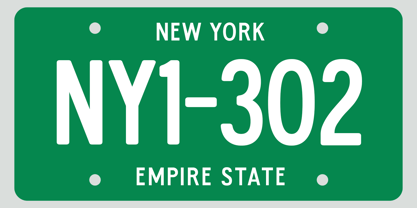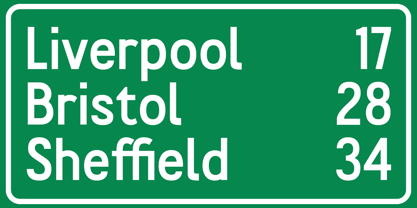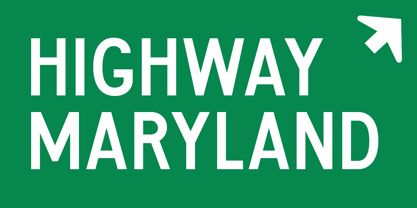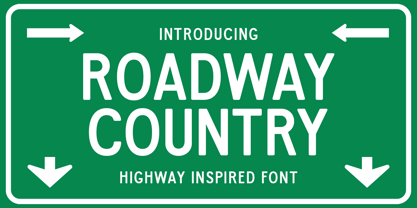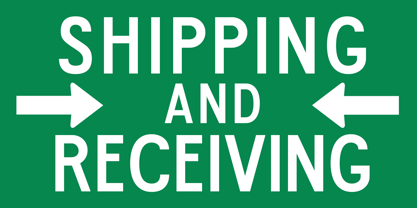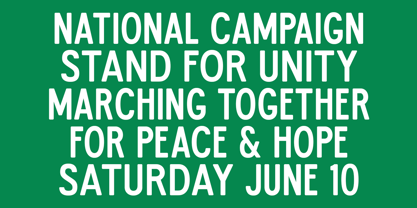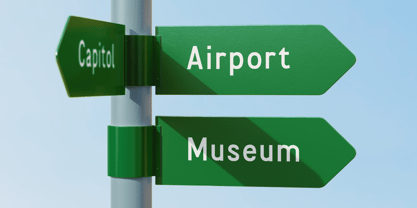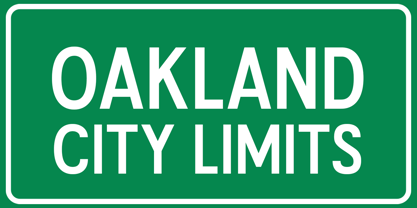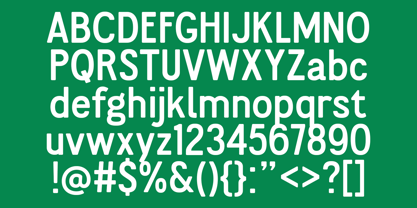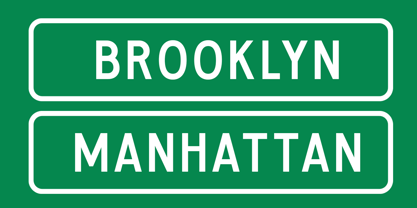
Roadway Country
by Viswell
The Roadway Country Font Family was designed by Najril Ilham Amrullah and published by Viswell. Roadway Country contains 3 styles and family package options. More about this family
Say hello to Roadway Country, a font inspired by the classic look of highway signs! With its clean lines and bold style, this typeface is all about making your message stand out loud and clear. Whether you're designing for posters, branding, or anything that needs a strong and confident vibe, Roadway Country is here to point the way. Simple, sharp, and super easy to read—let’s make the road to great design together!
Designers: Najril Ilham Amrullah
Foundry: Viswell